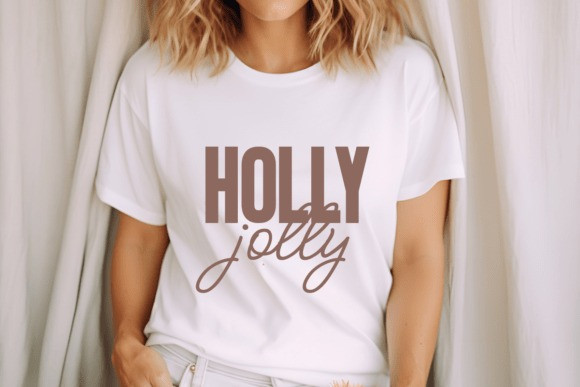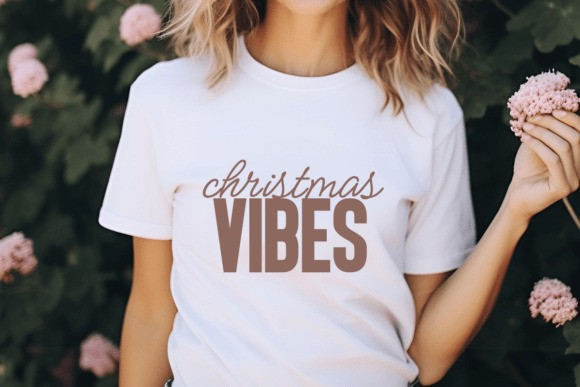
Grinch Squad Font
Grinch Squad Font is a strikingly bold and modern condensed display typeface designed to capture attention and deliver maximum impact. While its strong, solid structure makes it an excellent choice for year-round branding and high-impact headlines, its name makes it an absolute seasonal bestseller for holiday-themed designs.
This font is a crucial addition to the toolkit of any Print on Demand (POD) seller or crafter preparing for the Christmas season. Use it to create funny seasonal apparel, ‘Naughty List’ mugs, family holiday shirts, or personalized ornaments. The thick, clean lines ensure beautiful print quality on fabric and effortless cutting on machines like Cricut and Silhouette, minimizing weeding time on vinyl and iron-on materials.
Beyond the holidays, graphic designers will find its powerful, condensed form ideal for urban branding, sports typography, and statement logos. Grinch Squad includes uppercase and lowercase characters, numerals, and punctuation, ready for instant commercial use to bring your creative squad goals to life!